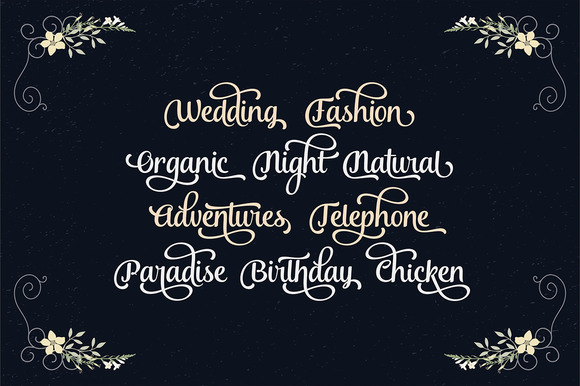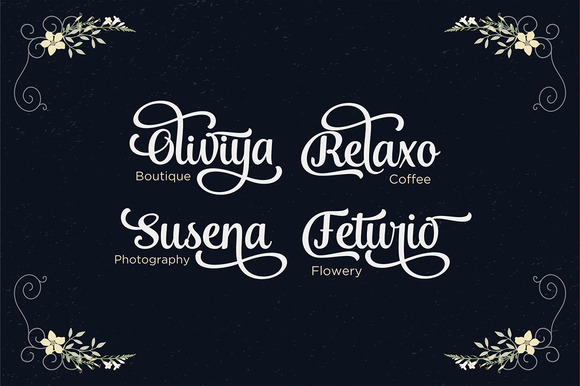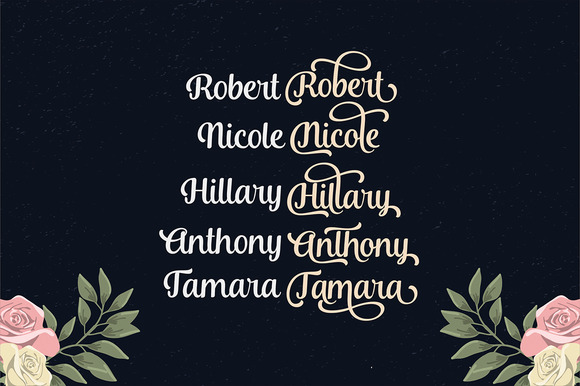
Andalusia Script
Andalusia is a Romantic Typefaces. bold, elegant & fun Vintage Script font. With almost 423 glyphs and 160 alternative characters, contain with opentype features. Stylistic alternates,swash and more. can be used for various purposes.such as logos, wedding invitation, t-shirt, letterhead, signage, lable, news, posters, badges etc.